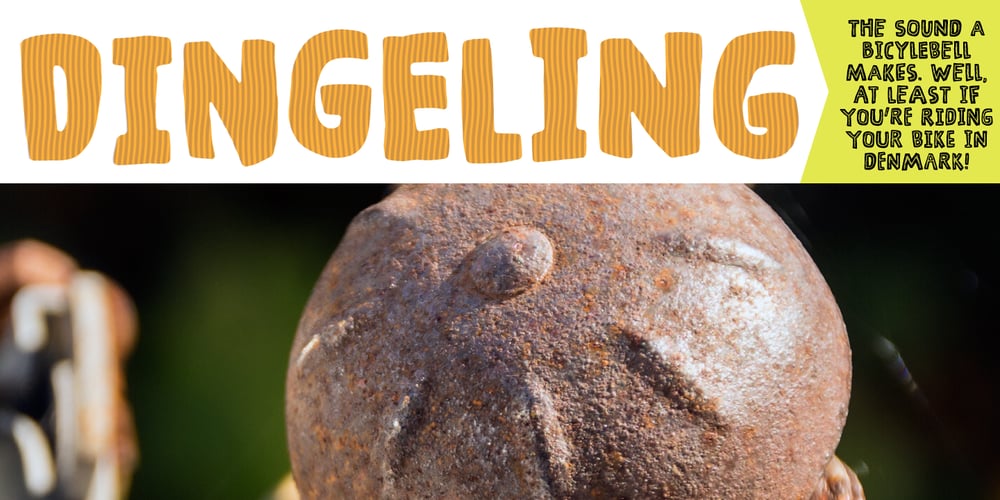
Dingeling Font Family was designed by Jakob Fischer and published by PizzaDude.dk. Dingeling contains 4 styles and family package options. In danish “Dingeling” is the sound a bicycle bell makes. But Dingeling is also a word to get someone’s attention. At that is exactly what this font does. It’s a kind of comic font, with rounded edges and super legible at large or very small sizes. It comes in 4 different versions, which can be mixed to make even cooler results. Of course the font has got multiple language support, and has got a fantastic 5 different versions of each letter – in every one of the 4 versions!